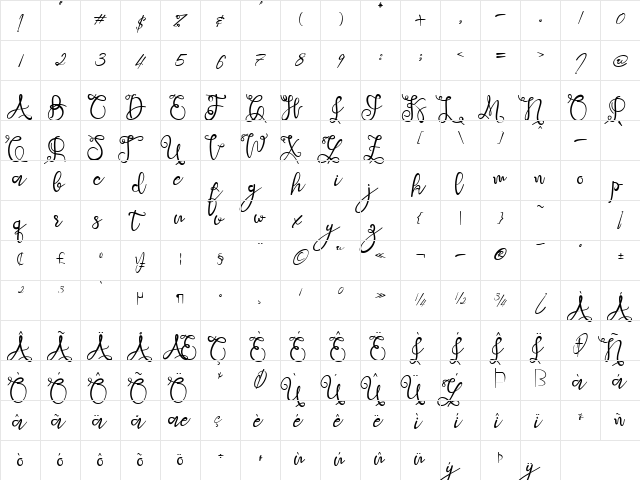
Sweet Nowvember Regular
| Designer | Aldedesign 2019 |
Design Context for Sweet Nowvember Typeface
Sweet Nowvember is a composed and adaptable typeface that performs quietly and consistently across a wide range of design contexts.